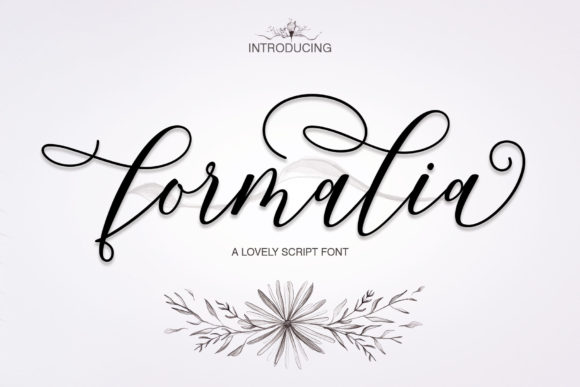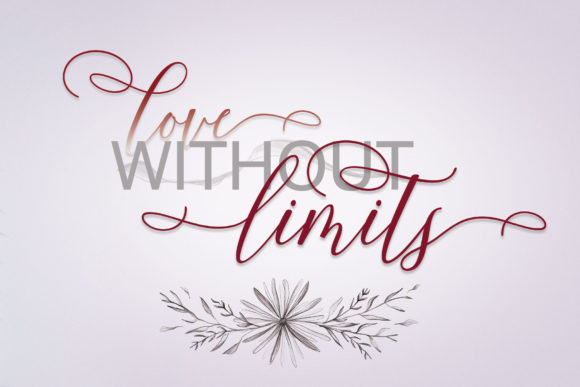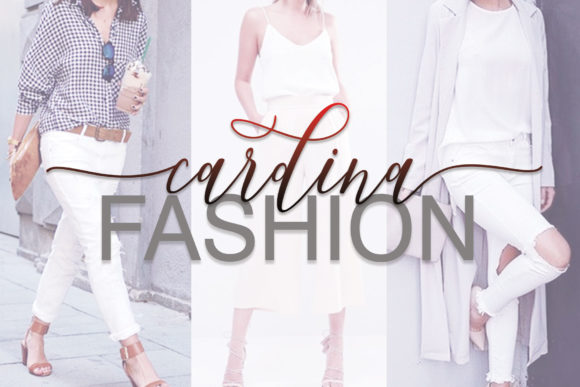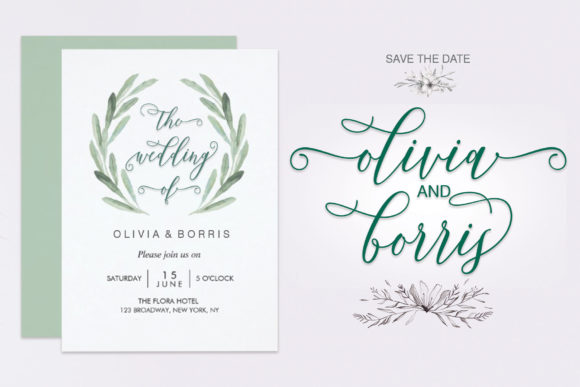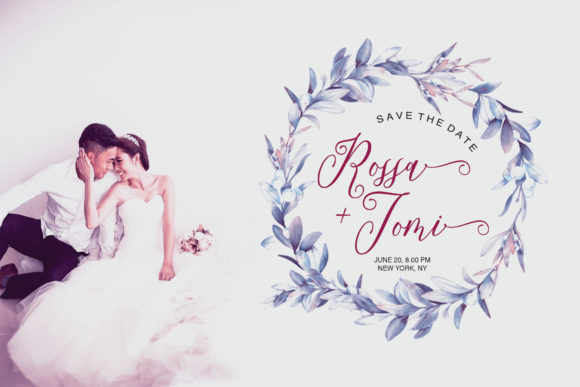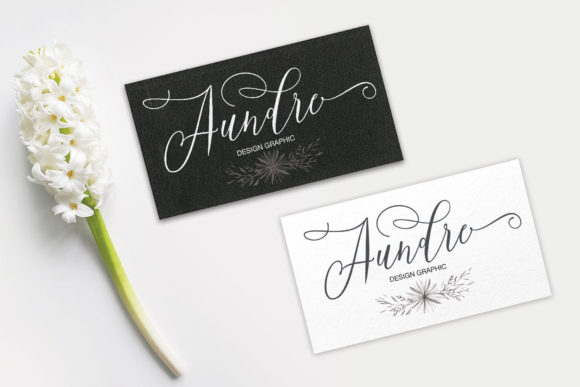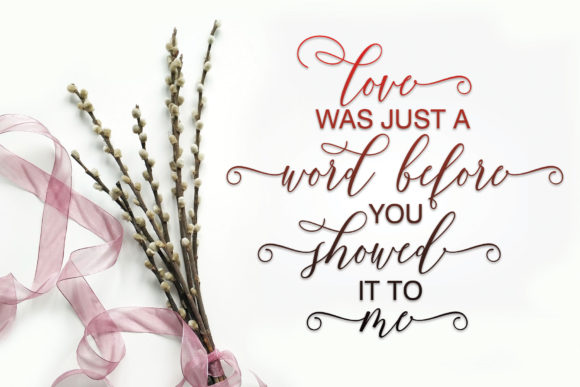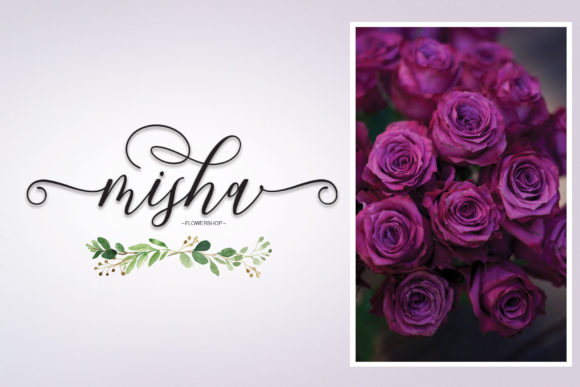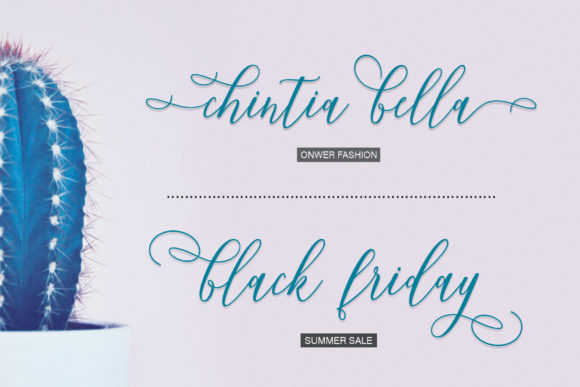
Formalia Font
About Formalia Font
Formalia is a stunning and beautiful handwritten font with a romantic touch. Get inspired by its bold swashes and authentic feel, and use it for any design project that needs that special touch.